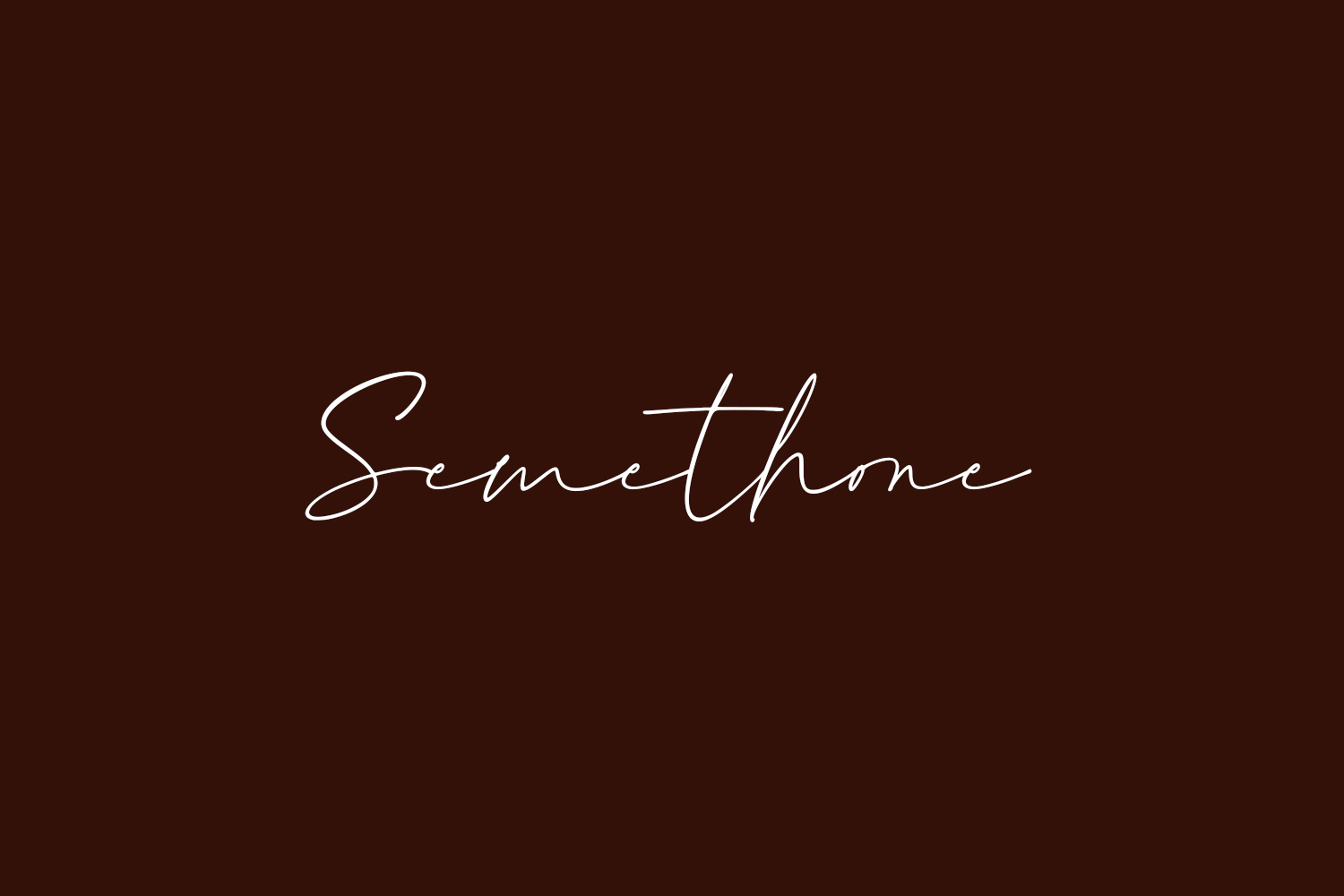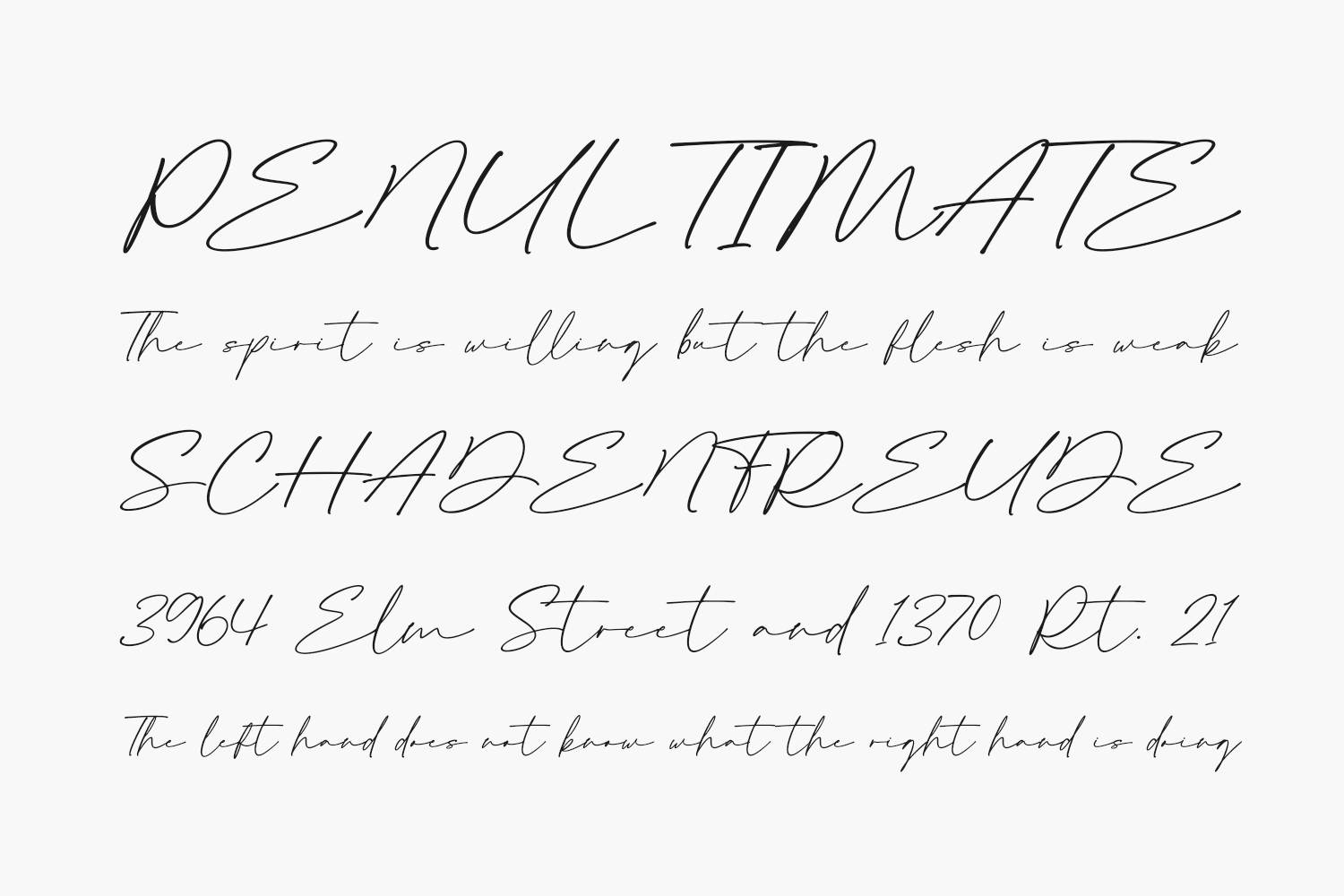
Semethone Free Font is a magical script font carefully created with a touch of elegance. Whether you’re looking for fonts for Instagram or calligraphy scripts for DIY projects, this font will turn any creative idea into a true piece of art. Semethone Free Font was designed by Pen Culture and is free for personal use only. Please purchase the full version for commercial use.